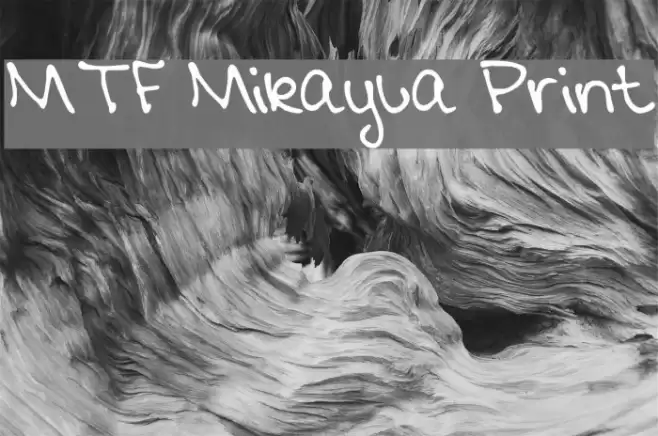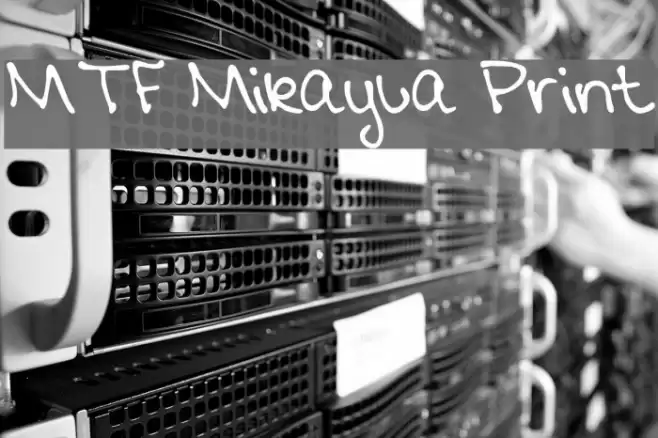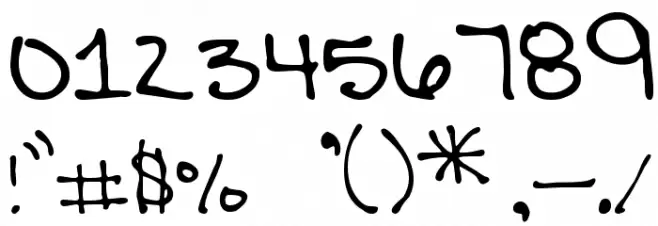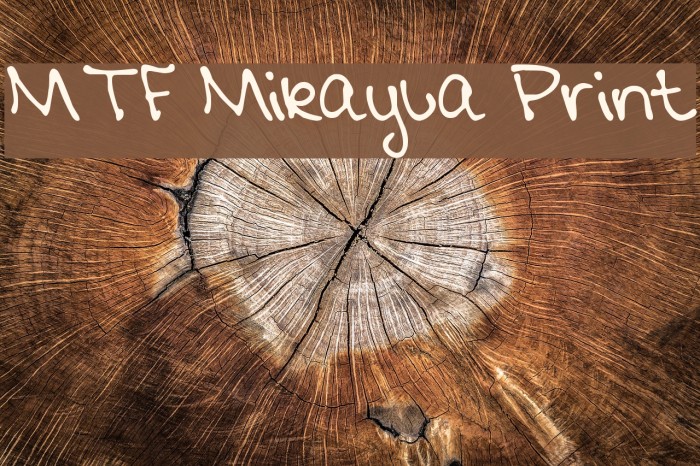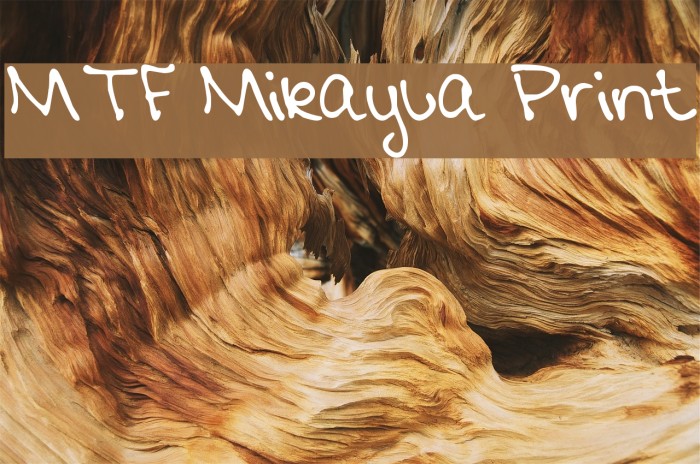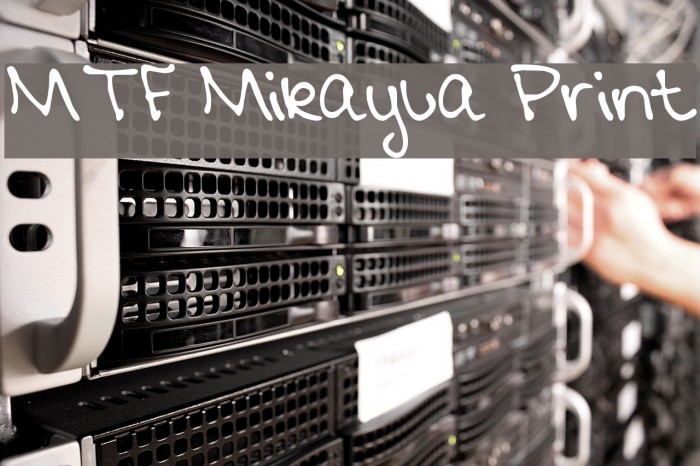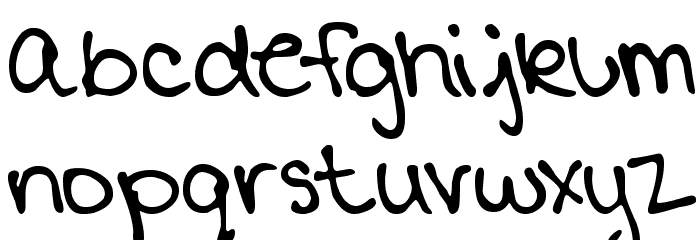
MTF Mikayla Print Font
MTF Mikayla Print Description
This playful and informal font features a handwritten style with a casual, friendly appearance. The letters are slightly irregular, giving it a personal touch that mimics natural handwriting. The uppercase and lowercase characters maintain a consistent flow, with rounded edges and a slight tilt, enhancing its approachable feel. Numbers and special characters are crafted with the same whimsical style, making it versatile for various uses. The font's overall look is reminiscent of a child's handwriting, making it ideal for projects that require a touch of innocence and creativity.
A playful, handwritten font with a casual and friendly appearance from Uncategorized fonts.
- Proposed Projects: Ideal for children's books, greeting cards, educational materials, and creative projects that require a personal touch.
- Overall Style: Casual, Playful
- Use Case: Headlines, Informal text, Creative projects